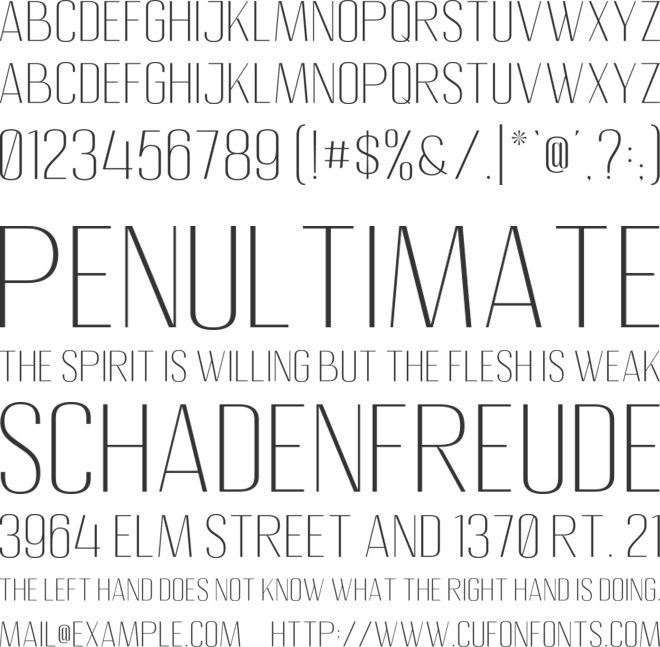
Hillside Font Family
A simple and sleek font that is perfect for achieving a contemporary aesthetic. With both sans-serif and script styles, it is a versatile option for custom and ornamental designs.